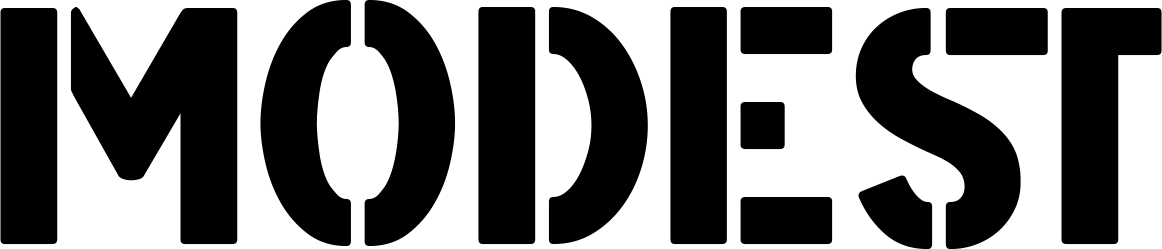
Modest Font
Familiarize your typography with a brilliant design by favoring this stencil font that has a modern feel. The thick bold characters of Modest are stenciled, and they allow you to develop what you have been thinking of.
The letterforms available for this stencil block font are capitalized A to Z letters, numbers, and punctuations while leaving out lowercase alphabets. Containers, military posters or flags, logos, clothing, and games are a few popular places you should consider if you need something disciplined.